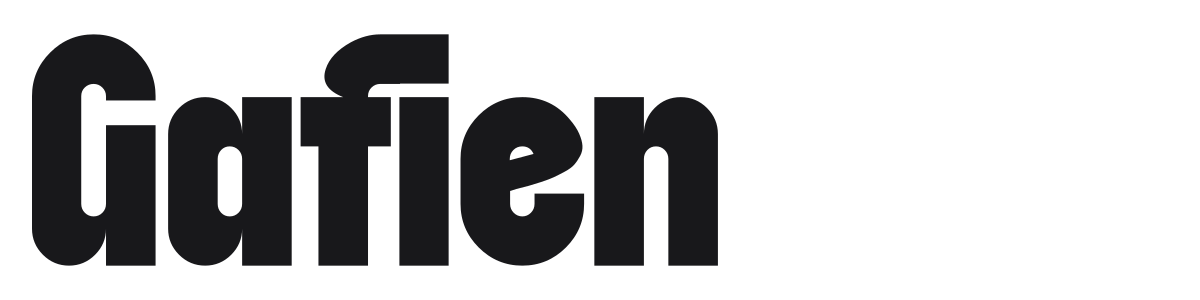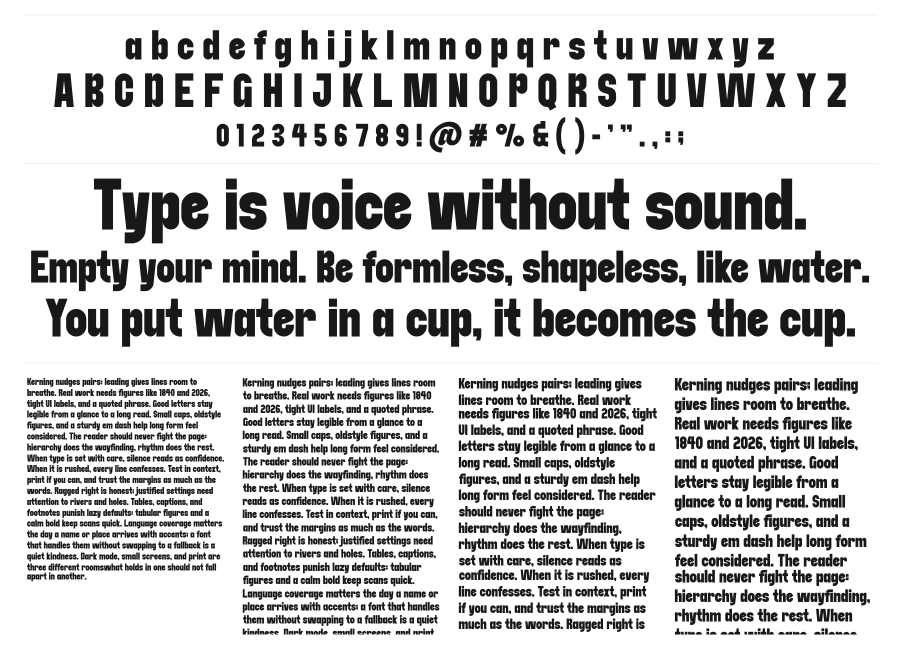
Gafien
Gafien is a heavy condensed grotesque sans with an intensely compressed structure and near-black weight. The tight counters and narrow proportions create a dense, powerful texture at large sizes. It suits editorial headlines, posters, and identity work where visual weight needs to do the heavy lifting.